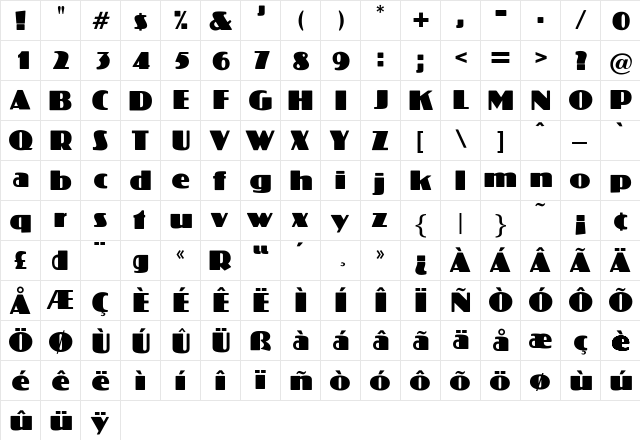
OPTIKoloss Medium
Design Context for OPTIKoloss Typeface
OPTIKoloss is a composed and adaptable typeface that performs quietly and consistently across a wide range of design contexts.